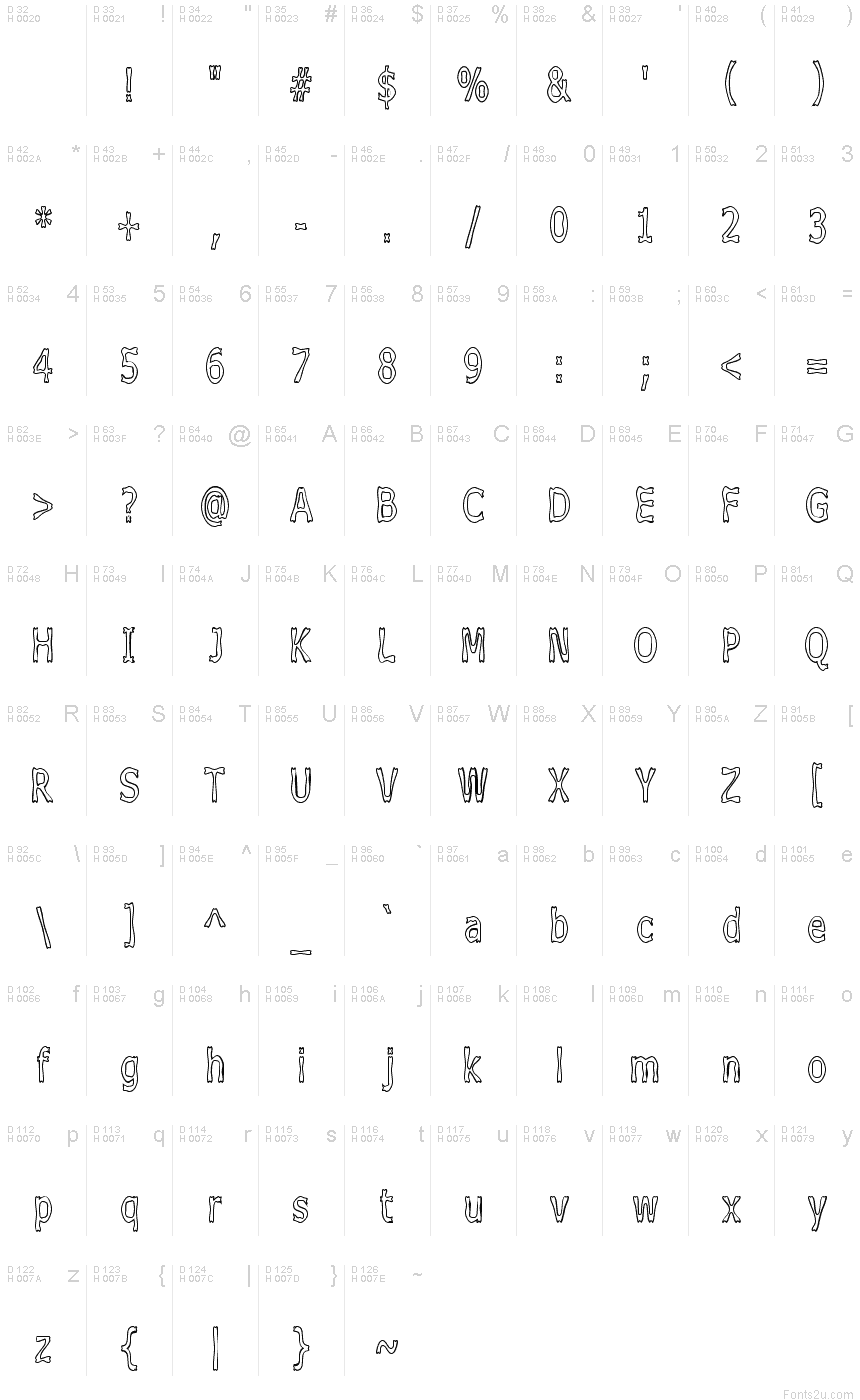
Boneribbon Tall Outline
Boneribbon Tall Outline font by GemFonts98 is a free comic outline display typeface with a tall, goofy swagger. Each letter looks like a wobbly balloon or bendy bone, with a hand-drawn, slightly shaky contour that keeps things light and mischievous. The hollow interiors beg for color, gradients, or textures, so it feels almost like a doodle straight from a notebook margin.
Using Boneribbon Tall Outline, you’ll get instant personality on Halloween party flyers, kids’ science or monster posters, playful logos, stickers, zines, and YouTube thumbnails. This free font really shines when it’s big and bold; fill the outlines with bright hues and pair it with a clean rounded sans serif for any supporting text.